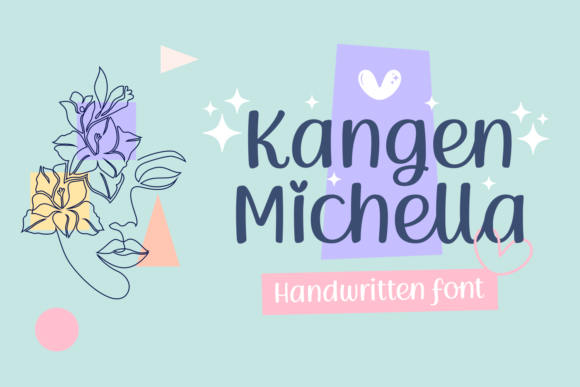
Kangen Michella Font
Kangen Michella is a loveley handwritten font with cute elements. Whether you’re looking for fonts for social media or calligraphy scripts for DIY projects, Kangen Michella will turn any creative idea into a true piece of art!